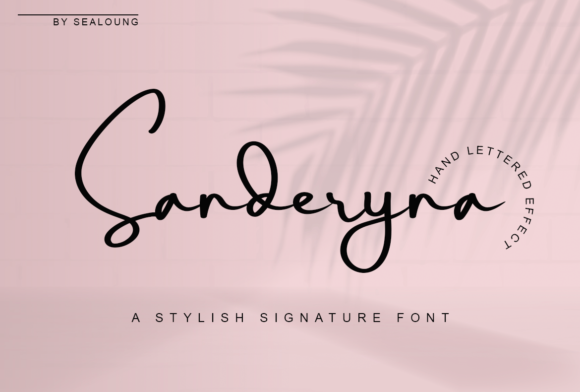
Immerse yourself in the captivating allure of Sanderyna Font, a delicate masterpiece that will transform your designs into works of art. This exquisite script family embodies the essence of elegance, beckoning you to express your creativity with a flourish.
With its graceful curves and gentle strokes, Sanderyna Font evokes a sense of timeless charm and sophistication. It is a font that speaks volumes, whispering secrets and heartfelt sentiments with each letter it graces. Whether you're crafting heartfelt wedding invitations, expressing gratitude with personalized thank you cards, or adding a touch of magic to your wedding day, Sanderyna Font will elevate your designs to new heights.
Its versatility extends beyond the realm of special occasions, making it a captivating choice for logos and branding. This script font adds a touch of sophistication to business cards, website headers, and social media posts, leaving a lasting impression that reflects your brand's personality.
Sanderyna Font is not merely a font; it's a gateway to unleash your imagination and create designs that resonate with your audience. Its delicate nature invites you to experiment with colors, textures, and embellishments, creating compositions that are as unique as your vision.
Step into the world of Sanderyna Font today and let your creativity bloom. With its endless possibilities and undeniable charm, this font will captivate your audience and leave a lasting impression on every heart it touches.